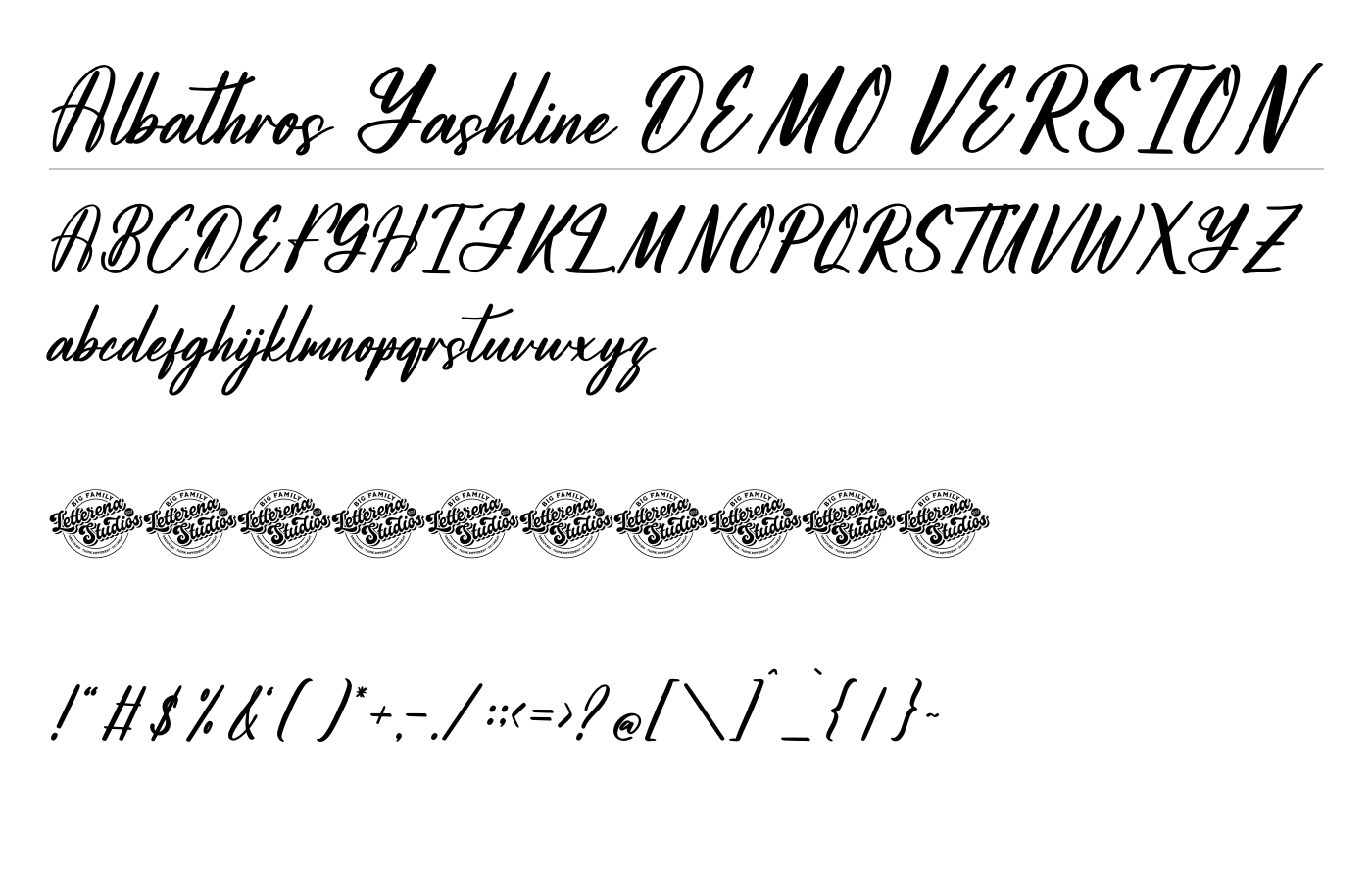
Albathros Yashline DEMO VERSION is an elegant, flowing script font characterized by its slender, slightly condensed letterforms and smooth, calligraphic strokes. It features distinct uppercase and lowercase styles with a playful yet refined personality, making it ideal for sophisticated invitations, branding, and editorial headlines that seek a handcrafted, stylish touch. This font works best where a sense of grace and personal flair is desired, bringing warmth and charm to any design.
Albathros Yashline DEMO VERSION Font
About Albathros Yashline DEMO VERSION Font